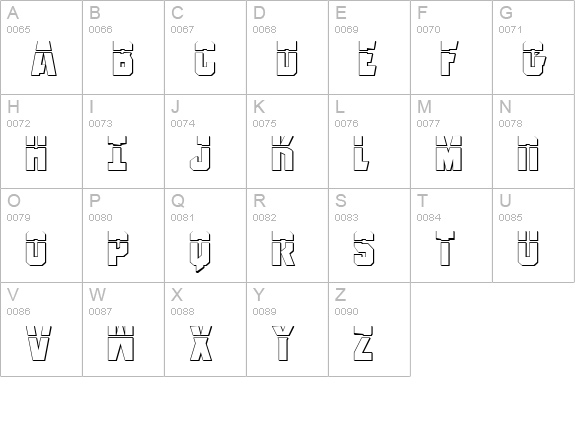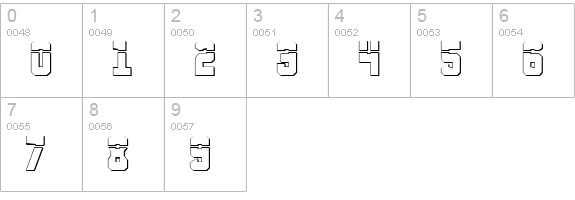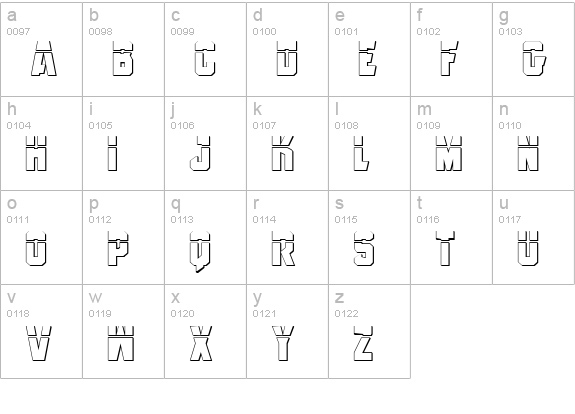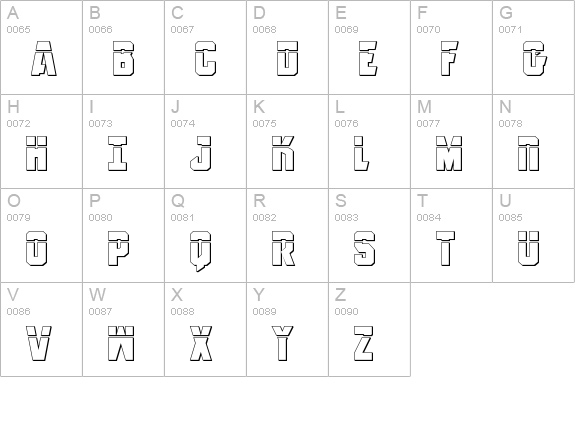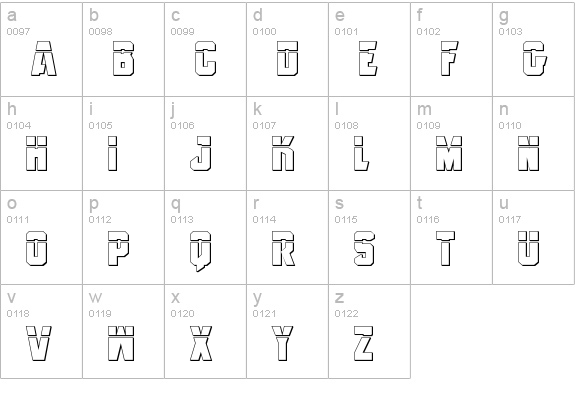
The Anitlles Laser 3D font is a captivating and futuristic typeface that adds a three-dimensional depth to your designs. Its sleek and modern aesthetic makes it perfect for creating eye-catching headlines, logos, and posters. The sharp edges and intricate details of this font give off a high-tech vibe, making it ideal for projects that require a cutting-edge look. Best of all, the Anitlles Laser 3D font is available for free download at FontsMarket.com. This means you can easily access and use this unique font in your projects without any cost. Whether you're a graphic designer, web developer, or simply looking to add a touch of modernity to your creations, the Anitlles Laser 3D font is a versatile and stylish choice that won't break the bank. Download it today and elevate your designs with this impressive typeface.